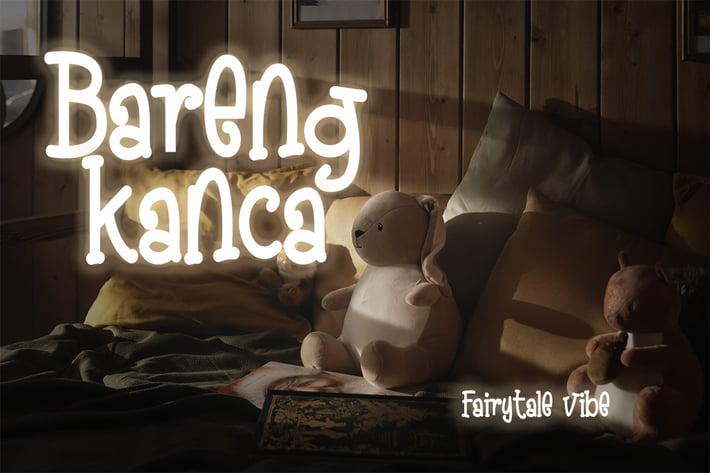
Bareng Kanca - Display Font
Bring a touch of magic to your designs with Bareng Kanca, a beautiful and whimsical font with a fairytale vibe. With its charming and unique style, Bareng Kanca is sure to make your designs stand out. Whether you're designing a wedding invitation, a children's book, or any other project, Bareng Kanca is the perfect font for adding a touch of enchantment.
+ A beautiful and whimsical font with a fairytale vibe
This font is perfect for:
+ Adding a touch of magic to your designs
+ Wedding invitations and other special events
+ Children's books and fairy tale designs
+ Any project that needs a touch of whimsy and enchantment.
Bring your designs to life with BarengKanca, the perfect fairytale font
+ A beautiful and whimsical font with a fairytale vibe
This font is perfect for:
+ Adding a touch of magic to your designs
+ Wedding invitations and other special events
+ Children's books and fairy tale designs
+ Any project that needs a touch of whimsy and enchantment.
Bring your designs to life with BarengKanca, the perfect fairytale font